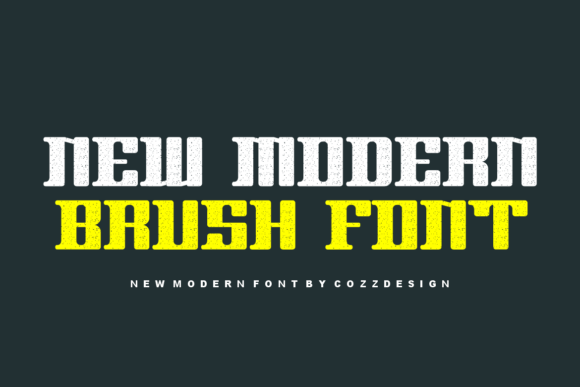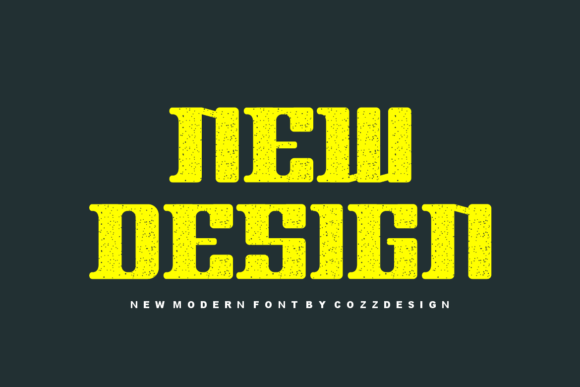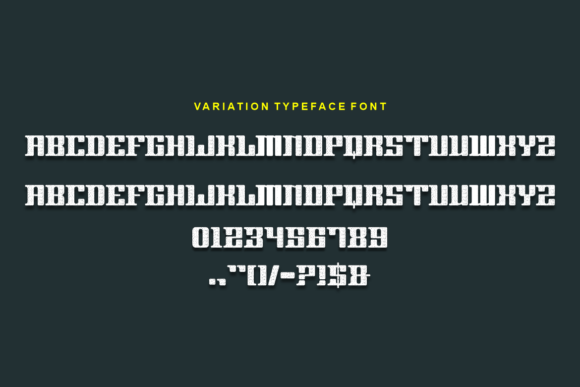
Introduction to Rengik Heroes Font
Have you ever stared at a blank canvas, itching to bring your creative vision to life, but struggling to find the perfect font to match your artistic expression? That’s exactly where the Rengik Heroes Font comes in – a game-changing display font that’s sure to elevate your designs to new heights.
Imagine a world where your high-quality designs shine brighter, with a sleek, modern aesthetic that commands attention. That’s what the Rengik Heroes Font promises to deliver – a seamless blend of style and functionality that’s perfect for designers looking to take their creative projects to the next level. With a transparent background and a free download option, this design resource is waiting to be unleashed on your next project.
Key Features of Rengik Heroes Font
- High-quality, bold font with unique character designs for a creative project
- Designed specifically for use in digital design, including web and mobile applications
- Perfect for use in creative projects, such as video games, comics, and graphic novels
Honest Review: Rengik Heroes Font
I recently had the chance to work with the Rengik Heroes Font for a creative project, and I must say it’s been a game-changer. The high quality of this font is truly impressive, making it a valuable design resource for any project.
One of the standout features of the Rengik Heroes Font is its transparent background, which allows for seamless integration into any design. It’s perfect for those who want a clean and modern look without the distraction of a background. Plus, it’s a free download, making it an excellent choice for designers on a budget.
- High quality and crisp typography ✨
- Transparent background for easy integration ✨
- Perfect for creative projects that require a modern look
- Limited character set (may not be suitable for large-scale projects) ⚠️
Overall, I’m impressed with the Rengik Heroes Font. It’s a valuable design resource that can elevate any creative project. While it has some limitations, I believe it’s a great choice for designers who want a high-quality, modern font without breaking the bank.
The Rengik Heroes Font is a high-quality, free download design resource ideal for creative projects. This versatile font features a transparent background, making it perfect for various applications.
The Rengik Heroes Font is suitable for a variety of creative projects, including:
- Logo creation
- Infographic design
- Marketing materials
Is the Rengik Heroes Font suitable for high-resolution printing?
Yes, the Rengik Heroes Font is designed to be high-quality and suitable for high-resolution printing. The font’s high-resolution design ensures crisp and clear text output, making it perfect for use in brochures, business cards, and other print materials.